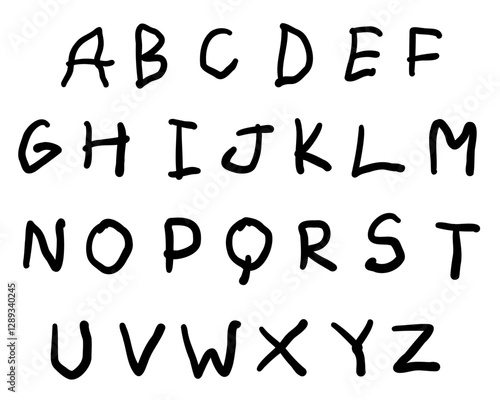
Childlike black english latin abc alphabet font with digits and symbols handwritten A to Z set. Vector illustration in doodle style isolated on white background. For logo, kids book, typography, menu.